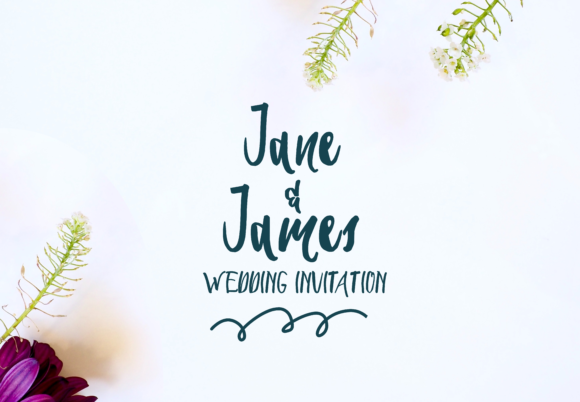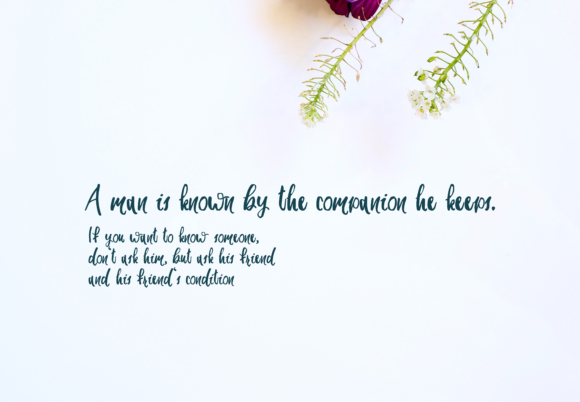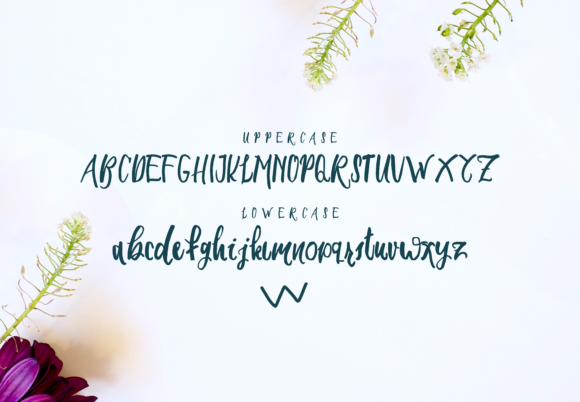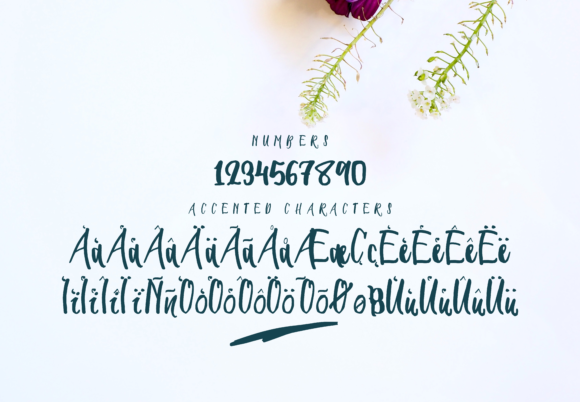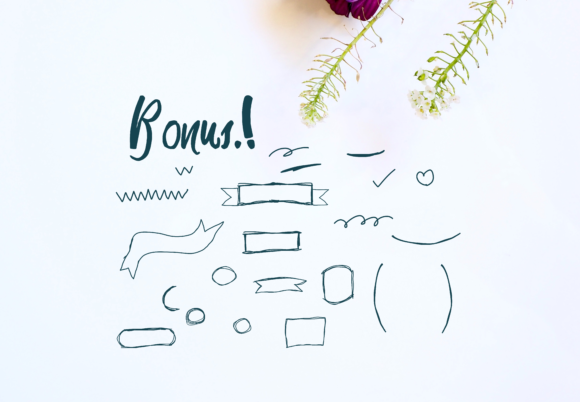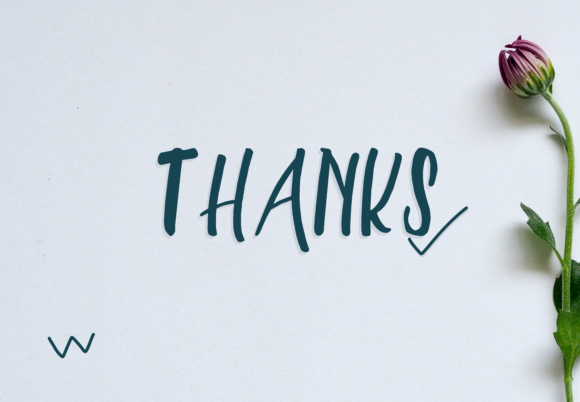
Seiroetan Font
About Seiroetan Font
Seiroetan is a rough, yet beautiful script that combines raw edges with an authentic style. Get inspired by its unfiltered authenticity!